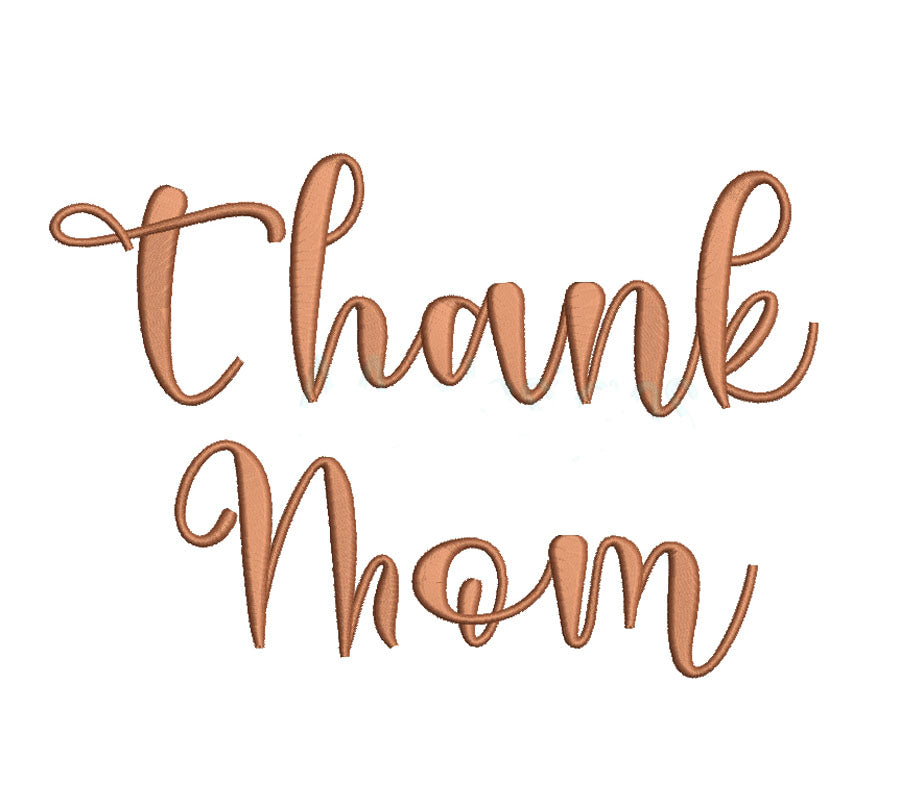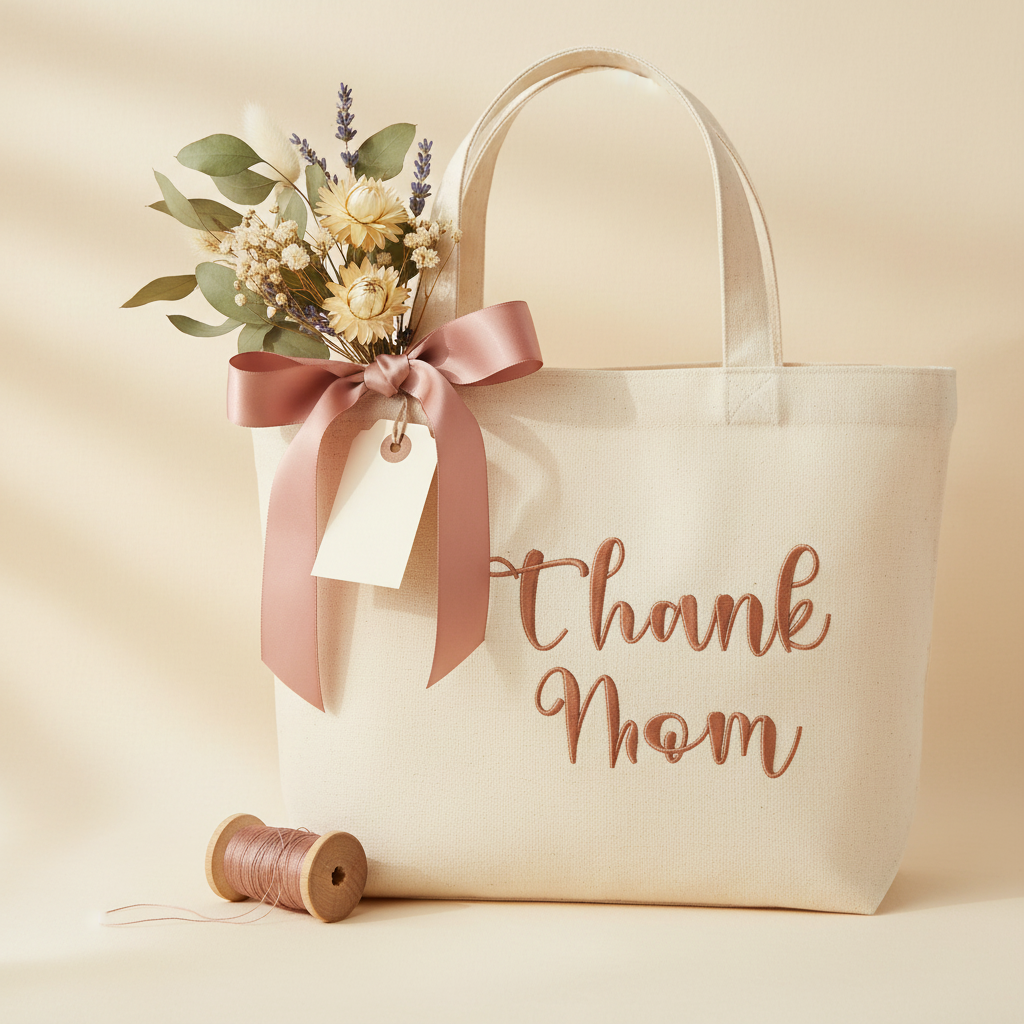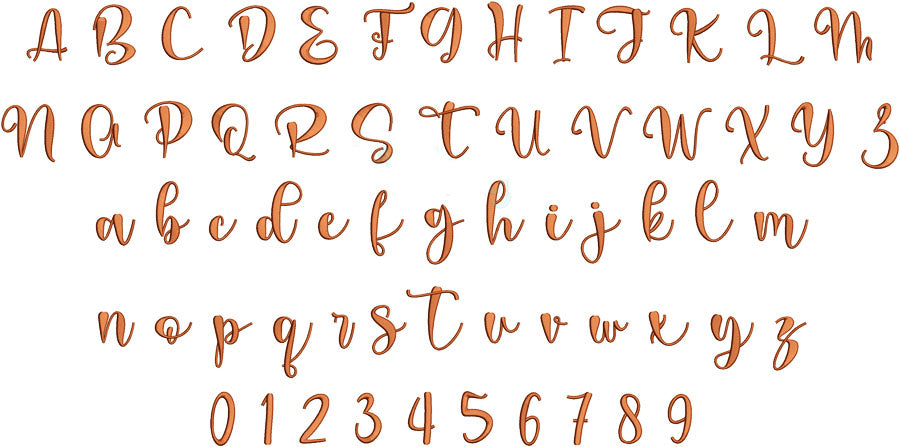
Add a graceful handwritten touch to your machine embroidery projects with this Script Embroidery Font. Perfect for monograms, names, apparel, personalized gifts, and keepsakes.